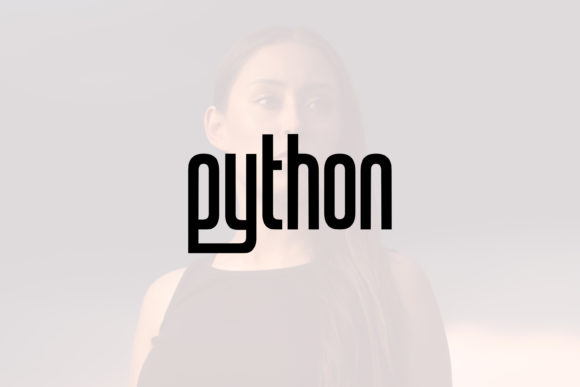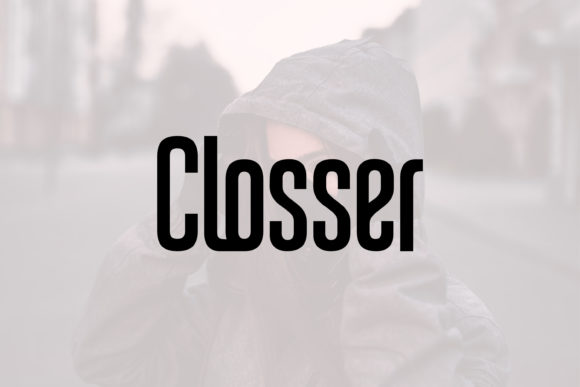
Introduction to Quarter Font
Quarter is an extremely modern sans serif font.
| 👤 Author | BeeType |
It can keep minimalism at its best levels and is a great choice for creative and classic typography designs This font is suitable for creating professional logos, marketing graphics, and more.
Key Features of Quarter Font
Quarter Font offers exceptional quality and versatility, making it a valuable addition to your design toolkit. Whether you’re creating for personal projects or commercial use, Quarter Font delivers professional results.